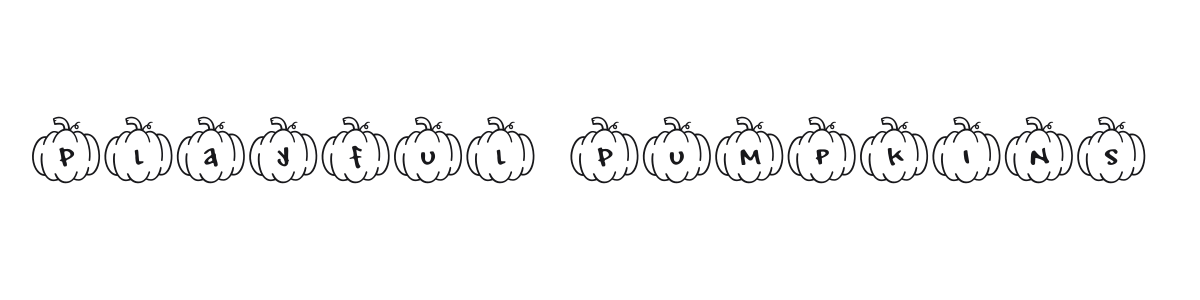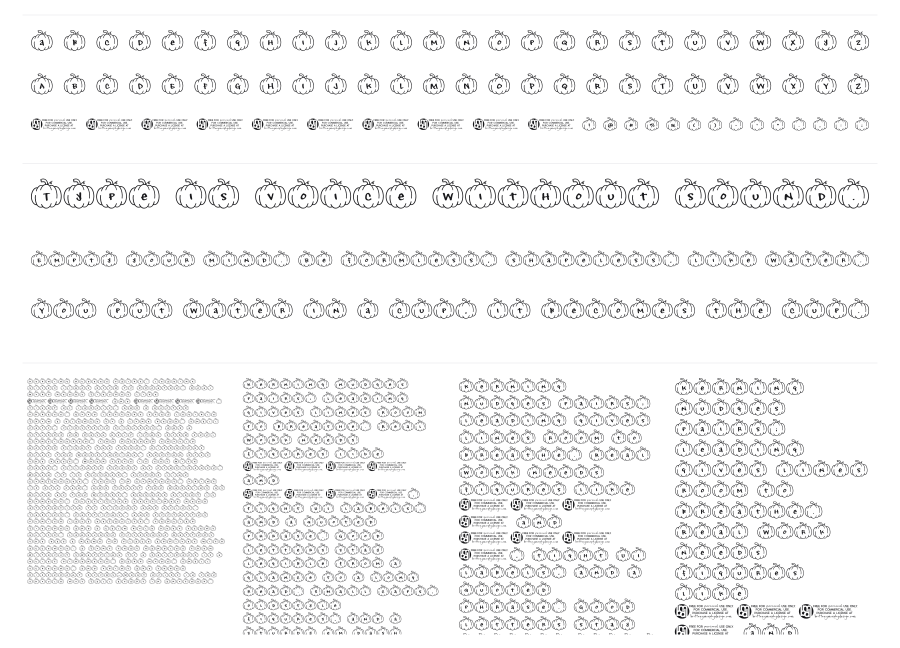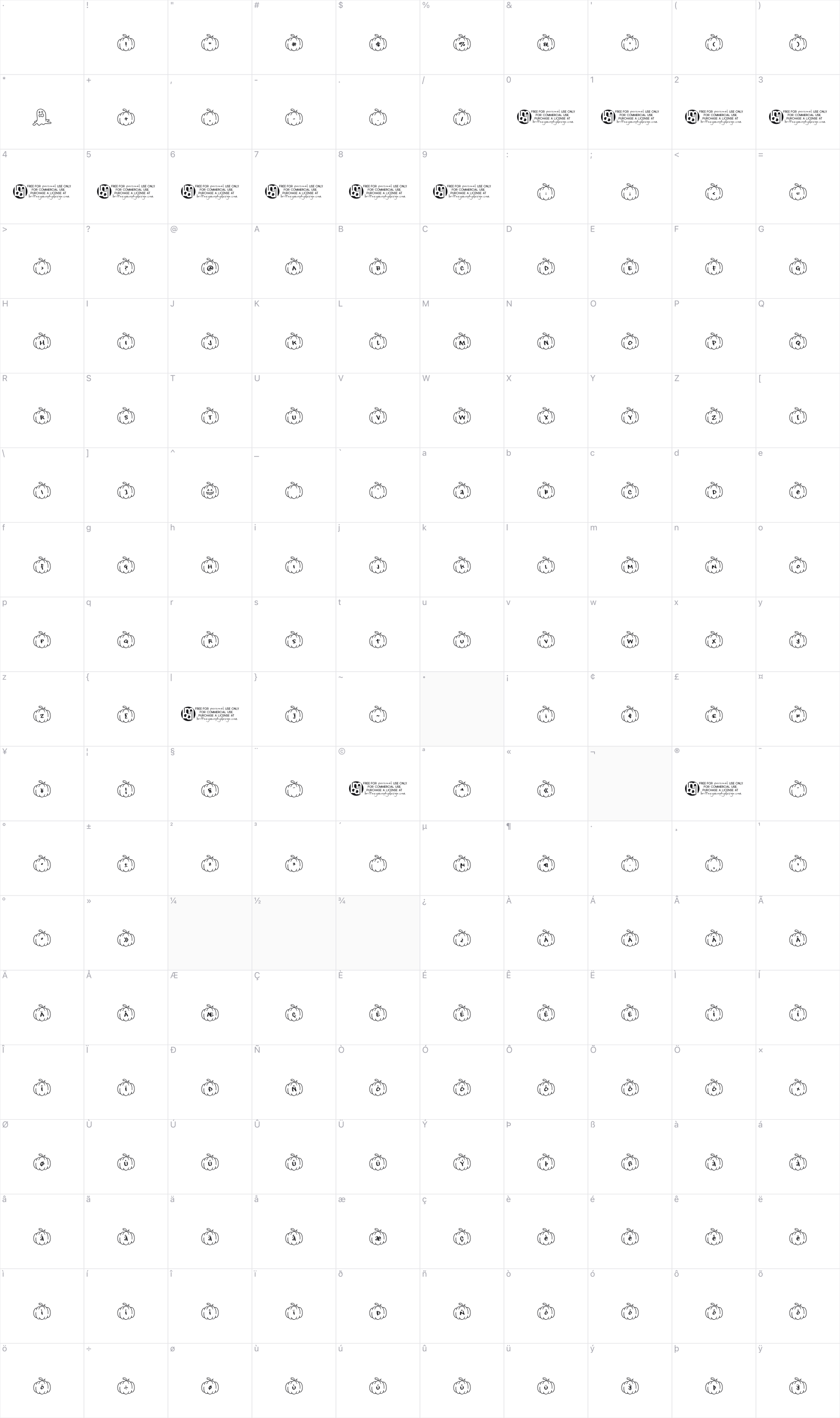
Playful Pumpkins
Playful Pumpkins is a Halloween novelty font where every letter sits inside a hand-drawn pumpkin illustration, turning text into a row of seasonal decorations. The wobbly linework and rounded casual lettering keep it firmly in cute-and-cheerful territory rather than spooky. Special characters include a ghost, a jack-o'-lantern face, and a blank pumpkin for extra decorative flexibility.